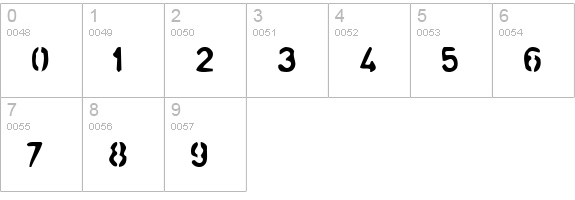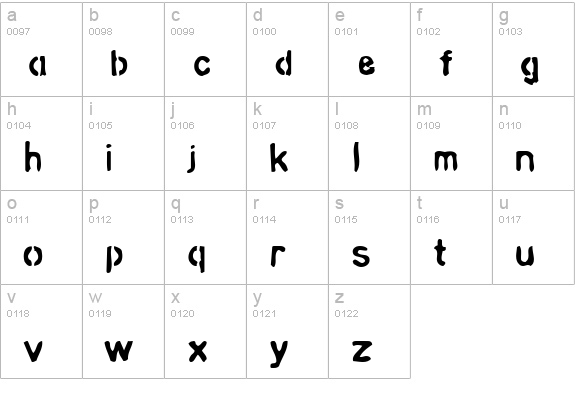
analog Font Details
Introducing the captivating Analog font, a timeless typeface that exudes classic elegance and sophistication. With its sleek lines and refined curves, Analog brings a touch of vintage charm to any project. This versatile font is perfect for a wide range of design applications, from branding to editorial design to packaging. What sets Analog apart is not just its striking aesthetics, but also its versatility. Whether you're creating a sleek modern logo or a vintage-inspired poster, Analog has the flexibility to adapt to any design concept with ease. Its clean, legible letterforms make it a great choice for both headlines and body text. And the best part? Analog is completely free to download at FontsMarket.com. Yes, you read that right - this exceptional font is available at no cost, allowing you to elevate your design projects without breaking the bank. So why wait? Download Analog today and add a touch of timeless elegance to your designs.